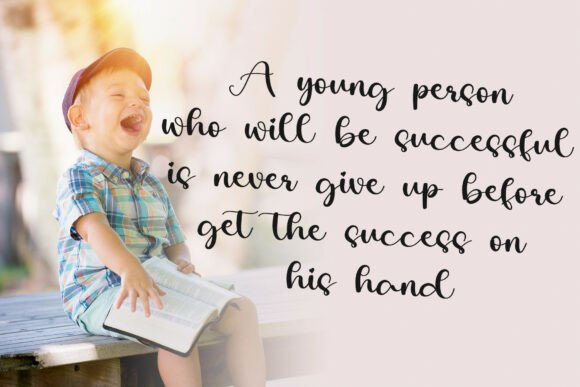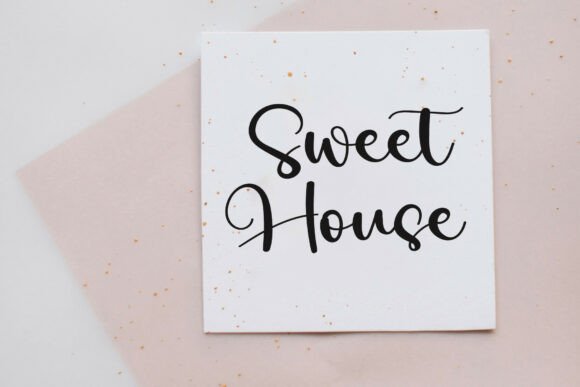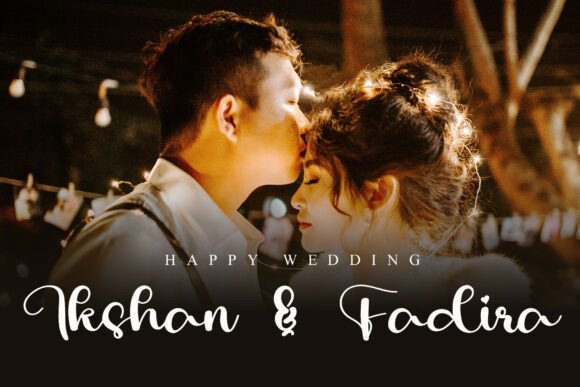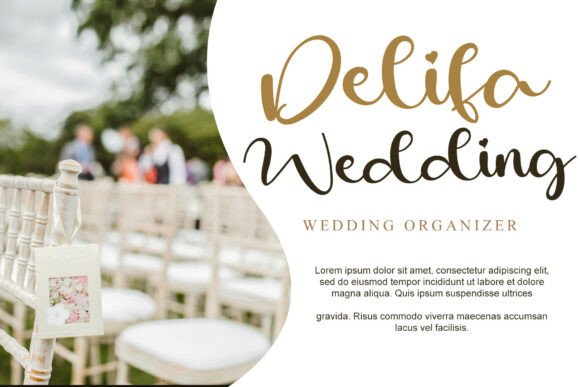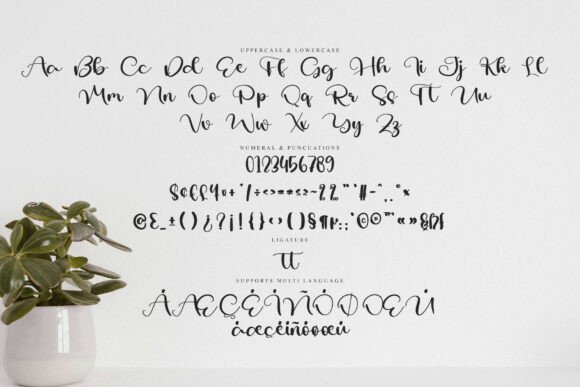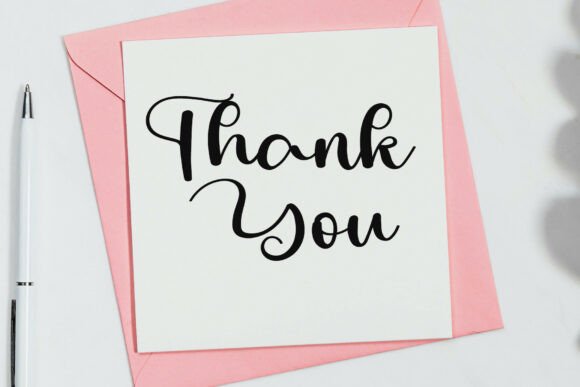
Introducing December Serenity Font: Elevate Your Designs with Elegance and Playfulness
In the world of typography, fonts play a crucial role in shaping the visual identity of a creative project. With numerous options available, finding the perfect font that strikes a balance between elegance and playfulness can be a daunting task. However, if you’re looking for a font that embodies the essence of sophistication and whimsy, look no further than the December Serenity Font. This extraordinary font combines the beauty of handwritten strokes with a bold and playful display style, making it an ideal choice for designers and crafters seeking to add a unique touch to their work.
The Beauty of Handwritten Strokes
December Serenity Font boasts smooth curves and artistic flair, reminiscent of handwritten strokes. Its charming personality shines through in every letter, making it perfect for projects that require a personal touch. The font’s elegant and refined appearance is sure to captivate your audience, whether you’re designing a logo, creating a social media post, or crafting a brand identity.
A Versatile Font for Diverse Projects
One of the standout features of December Serenity Font is its versatility. This font can effortlessly adapt to various design styles, from whimsical and casual to stylish and sophisticated. Whether you’re working on a:
- Logo design: Add a touch of elegance and playfulness to your brand’s logo.
- Social media graphics: Create engaging and eye-catching posts that reflect your brand’s personality.
- Branding and packaging: Develop a cohesive visual identity that sets your brand apart.
- Digital and print materials: Use December Serenity Font to add a unique flair to your brochures, flyers, and business cards.
This font is sure to deliver a truly remarkable design experience.
Why Choose December Serenity Font?
With so many fonts available, what sets December Serenity Font apart? Here are a few reasons why designers and crafters love this font:
- Unique and eye-catching design: December Serenity Font features a distinctive style that will make your designs stand out.
- Elegant and refined appearance: The font’s smooth curves and artistic flair give it a sophisticated look that’s perfect for a wide range of projects.
- Easy to read and versatile: Whether you’re using it for headings or body text, December Serenity Font is clear and legible.
Tips for Using December Serenity Font
To get the most out of December Serenity Font, here are a few tips:
- Experiment with font sizes: Use larger font sizes to create eye-catching headings or smaller sizes for body text.
- Play with colors: Try pairing December Serenity Font with bold and bright colors to add a pop of personality to your designs.
- Mix and match with other fonts: Combine December Serenity Font with other fonts to create a unique and visually appealing typography.
In conclusion, December Serenity Font is an exceptional choice for designers and crafters seeking to add a touch of elegance and playfulness to their creative projects. With its smooth curves, artistic flair, and charming personality, this font is sure to captivate your audience and elevate your designs. Whether you’re working on a logo, social media graphics, or branding and packaging, December Serenity Font delivers a truly remarkable design experience. So why wait? Try December Serenity Font today and discover the perfect blend of sophistication and whimsy for your next project.